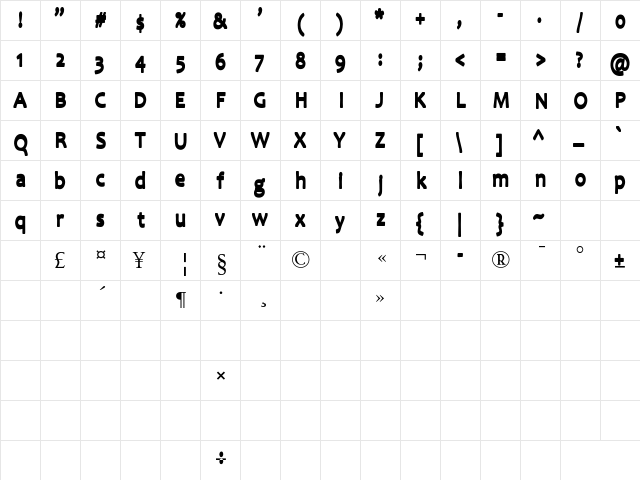
Comuc Regular
Design Context for Comuc Typeface
Comuc takes a measured approach to typography — its balanced proportions and neutral character make it a reliable workhorse for both digital and print work.